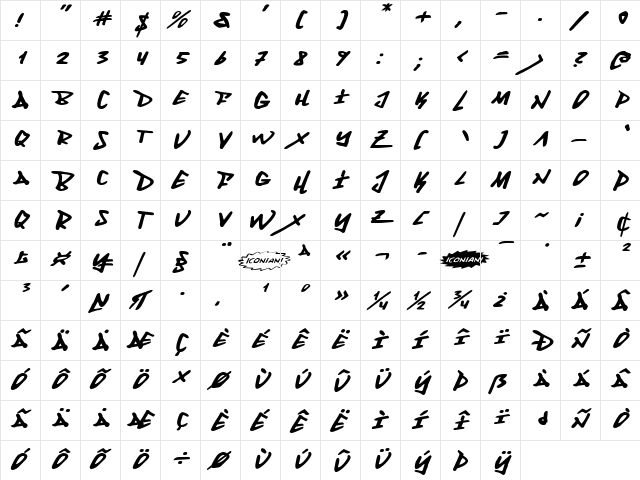
Fantom Expanded Italic Expanded Italic
Design Context for Fantom Expanded Italic Typeface
Fantom Expanded Italic is a composed and adaptable typeface that performs quietly and consistently across a wide range of design contexts. The slanted form adds forward momentum and visual energy.